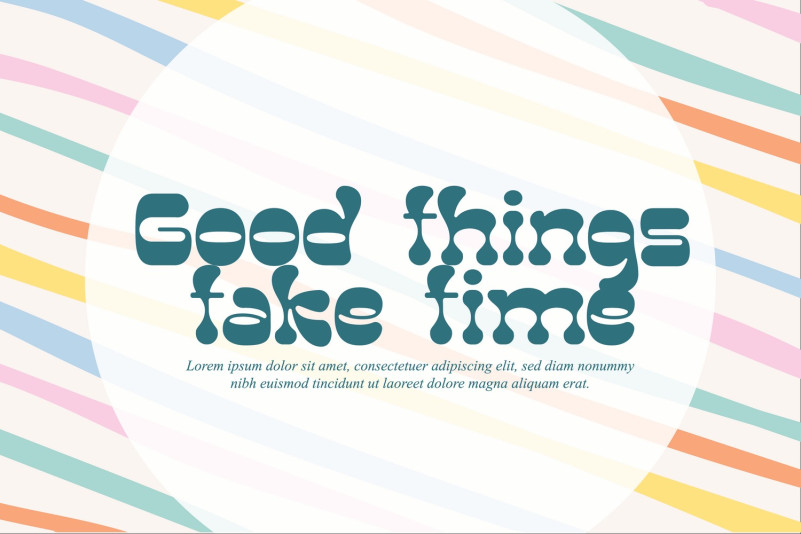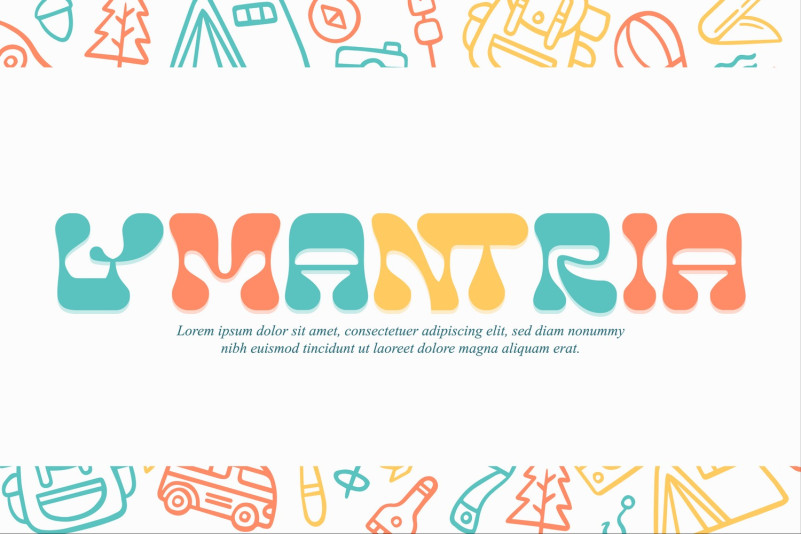
Lymantria Font
LYMANTRIA Display Font is one of the bold, cute and funky collection fonts, a unique style and a bit messy is the concept of this font. It’s a experimental typographic that combines san serif and groovy fonts, with the liquify technique, to create an elastic and fun impression, can be combined with sans serif, fixed width, script fonts, suit for branding, titles, clothing.
To make it look more unique, here we prepared some ligatures:
AE DE TY TT ΤΑ TR TL TE ET LL LE FA FI LY LO TI NG TO FN NY HT NT OT TH FJ RT RA FS ST FT TU UT OU FL